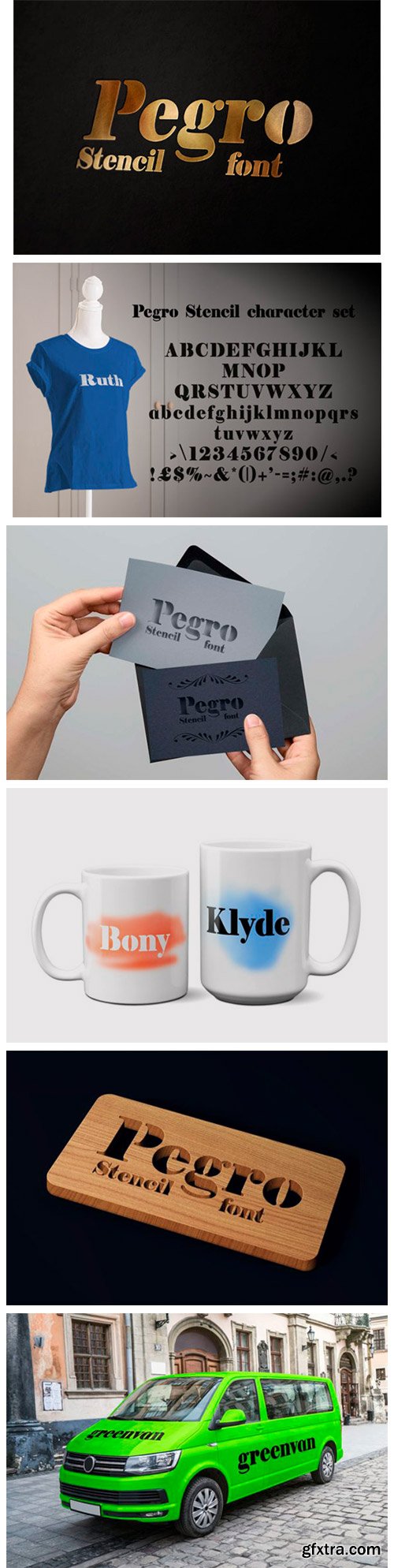
Pegro Stencil Font
Pegro Stencil is a unique and bold stencil serif font. It will elevate a wide range of design projects to the highest level, be it branding, headings, wedding designs, invitations, signatures, logos, labels, and much more!